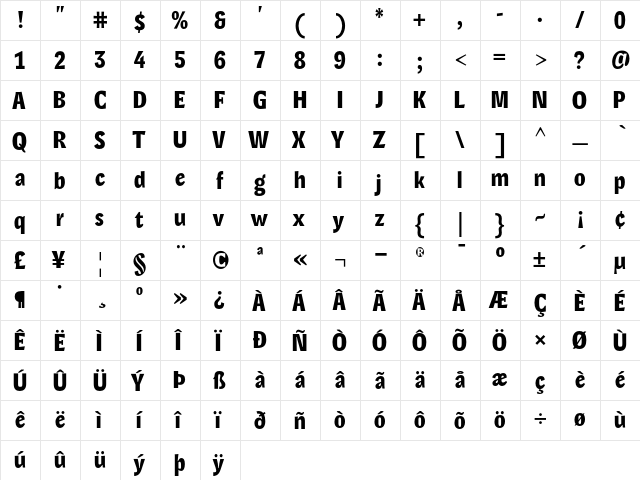
Lexicon Headline Regular
| Foundry | Frantisek Storm |
| Designer | Frantisek Storm |
Design Context for Lexicon Headline Typeface
Lexicon Headline is a composed and adaptable typeface that performs quietly and consistently across a wide range of design contexts.